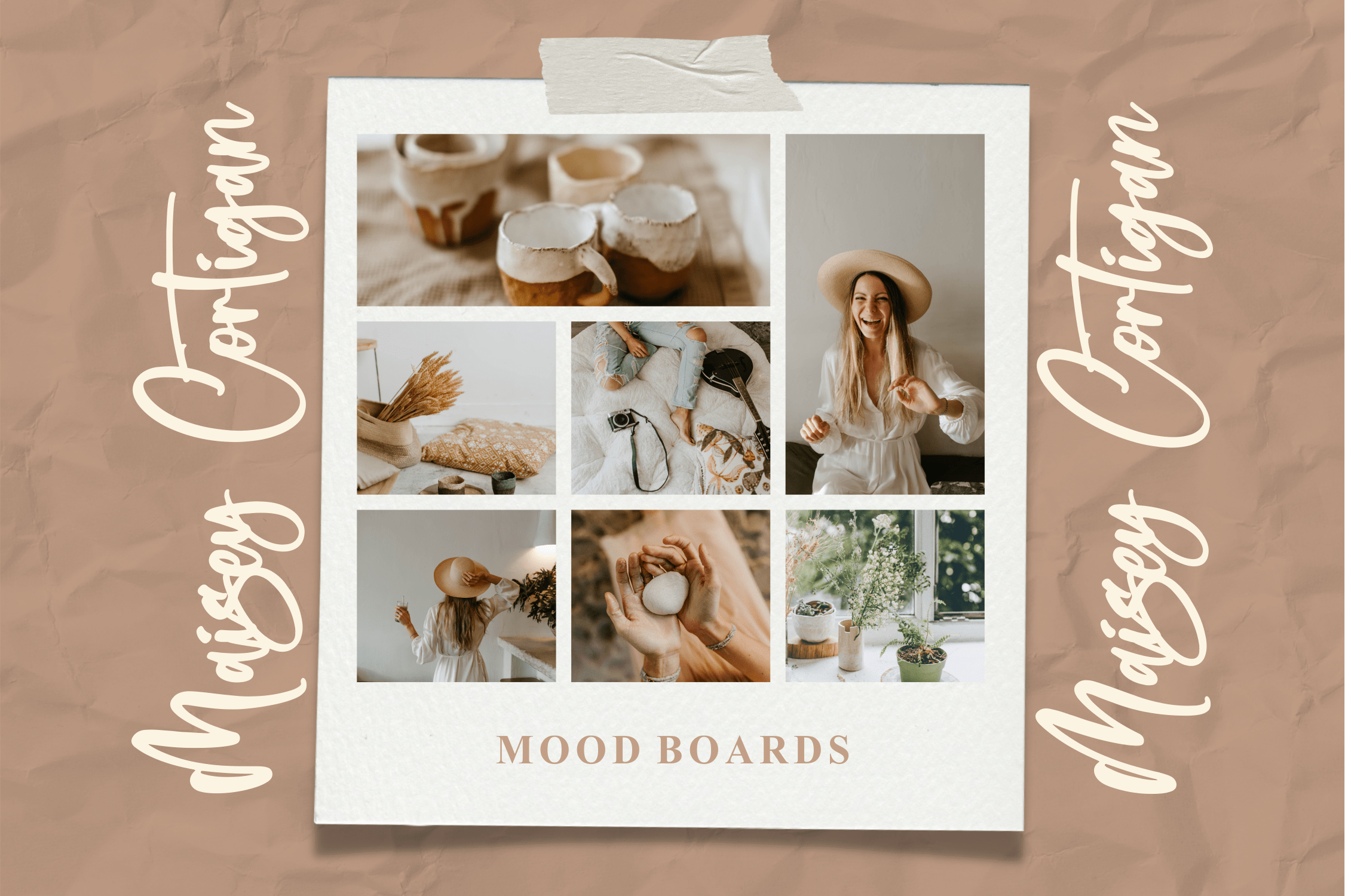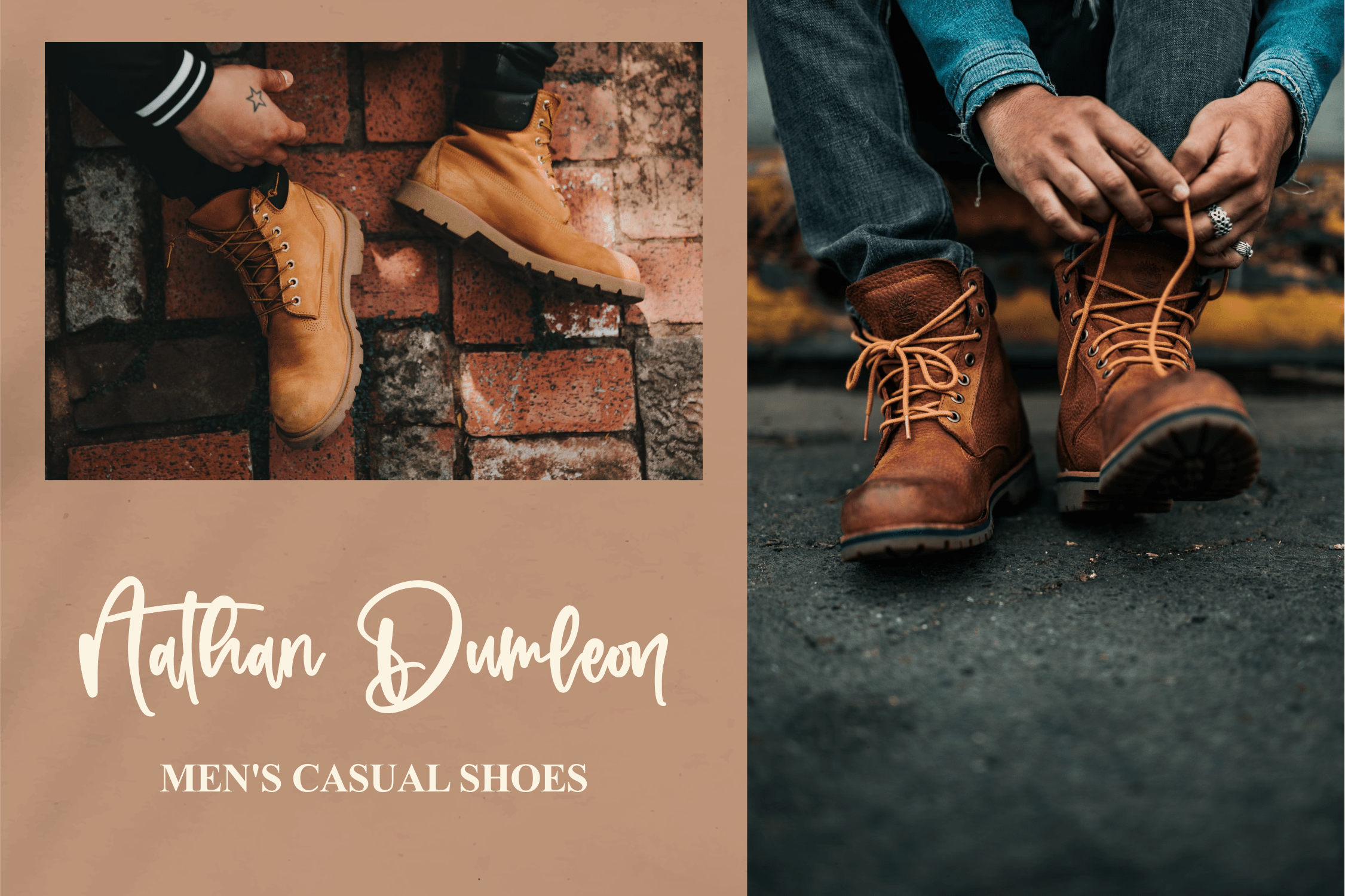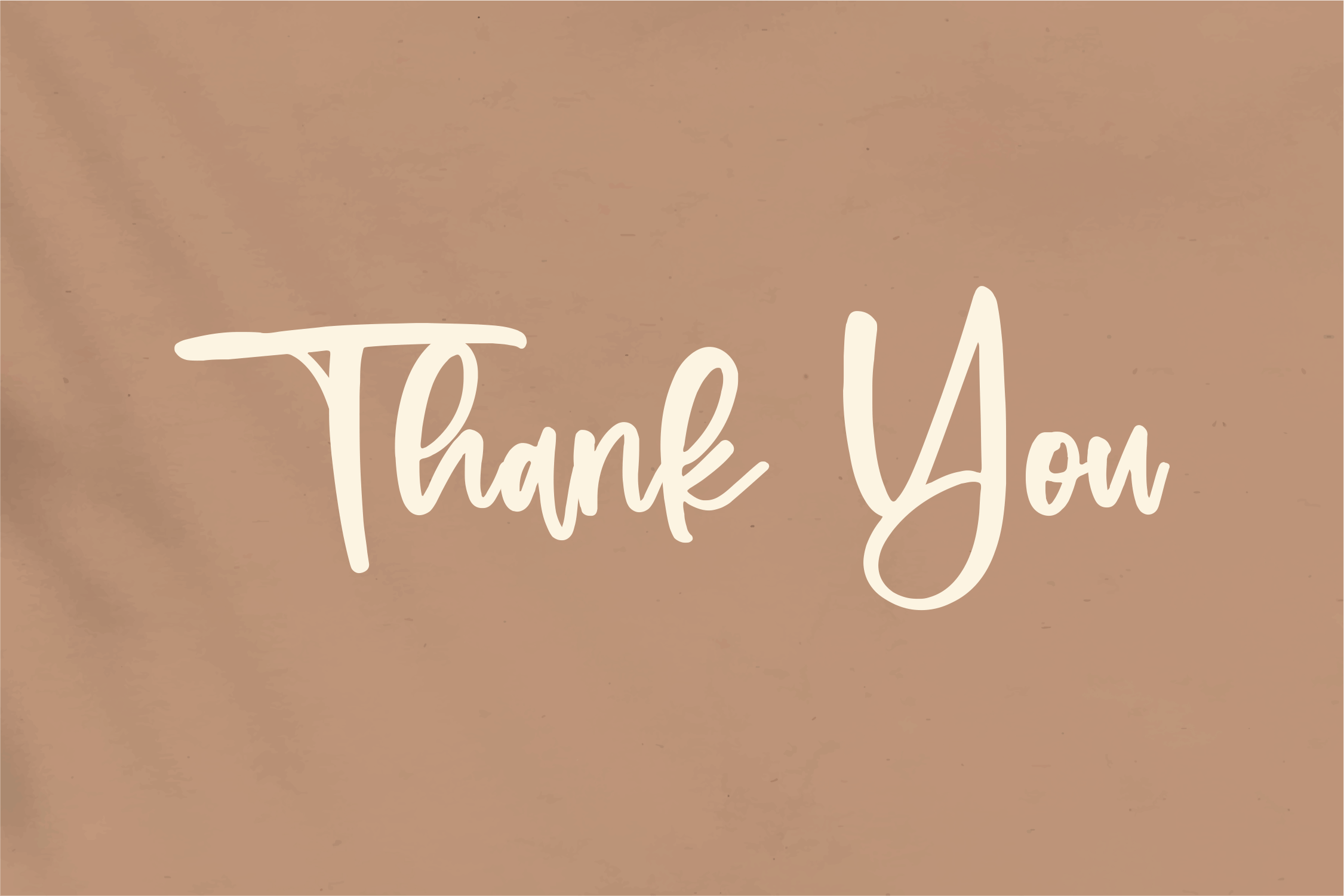
Falermost Signateria Font
This is a modern signature Font, suitable for any projects such as: logos, branding projects, homeware designs, product packaging, mugs, quotes, posters, shopping bags, t-shirts, book covers, name card, invitation cards, greeting cards, label, photography, watermark, special events, and all your other lovely projects that need a beautiful script taste.